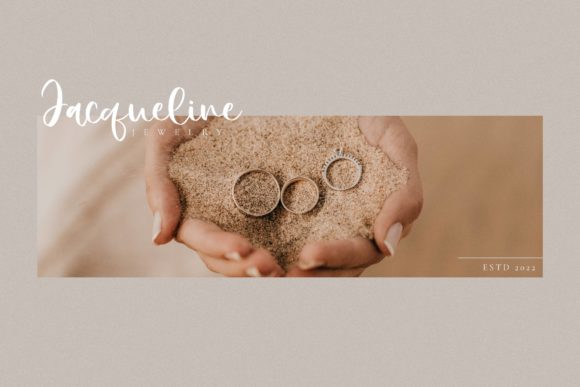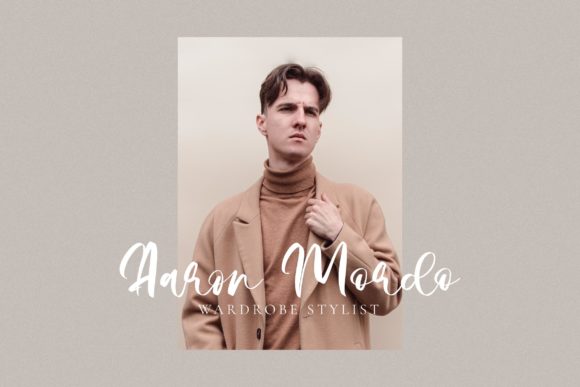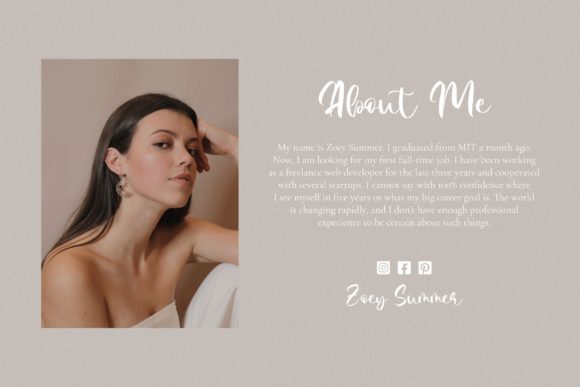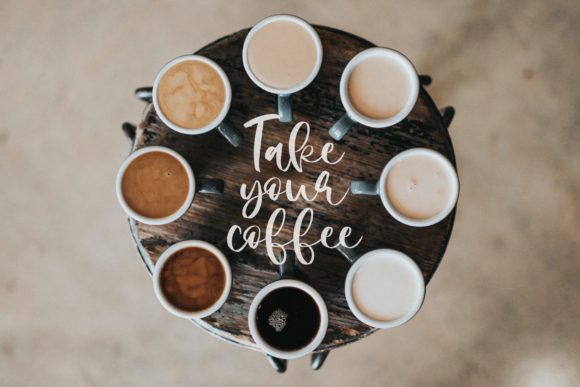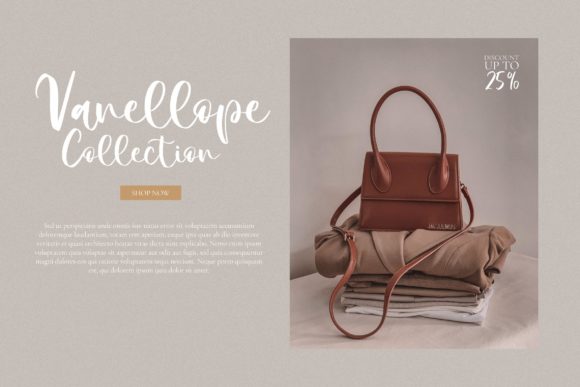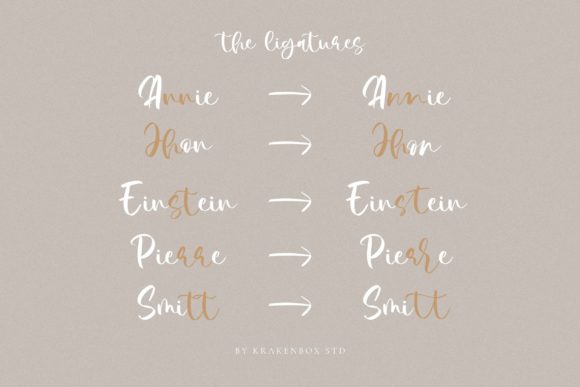
Introduction to Qwentine Shelby Font
Qwentine Shelby is a fashionable and sophisticated script with its own unique curves and an elegant inky flow.
Its elegant, classy, and modern look makes it a fantastic choice for fashion, signature, album covers logos, branding, magazines, social media posts, advertisement, and many more .
Key Features of Qwentine Shelby Font